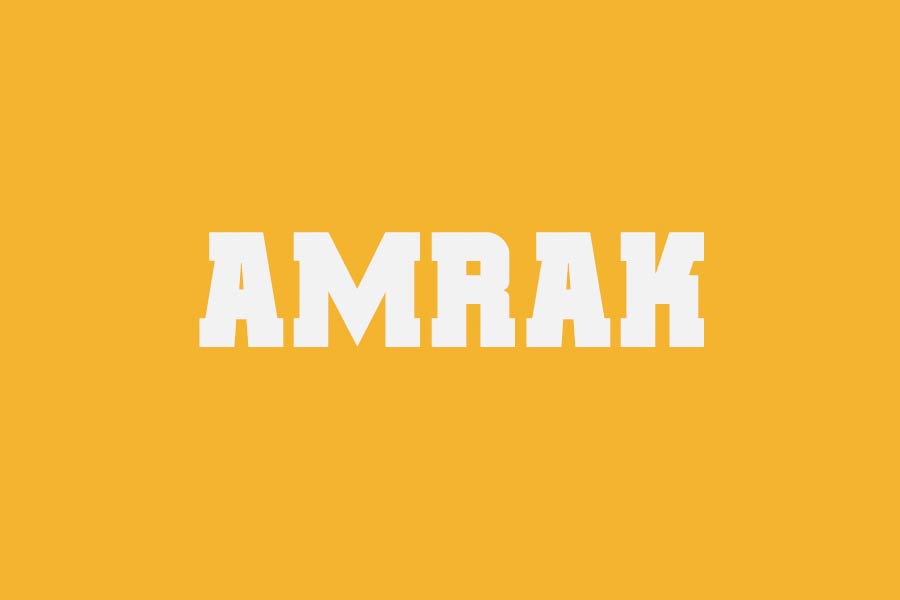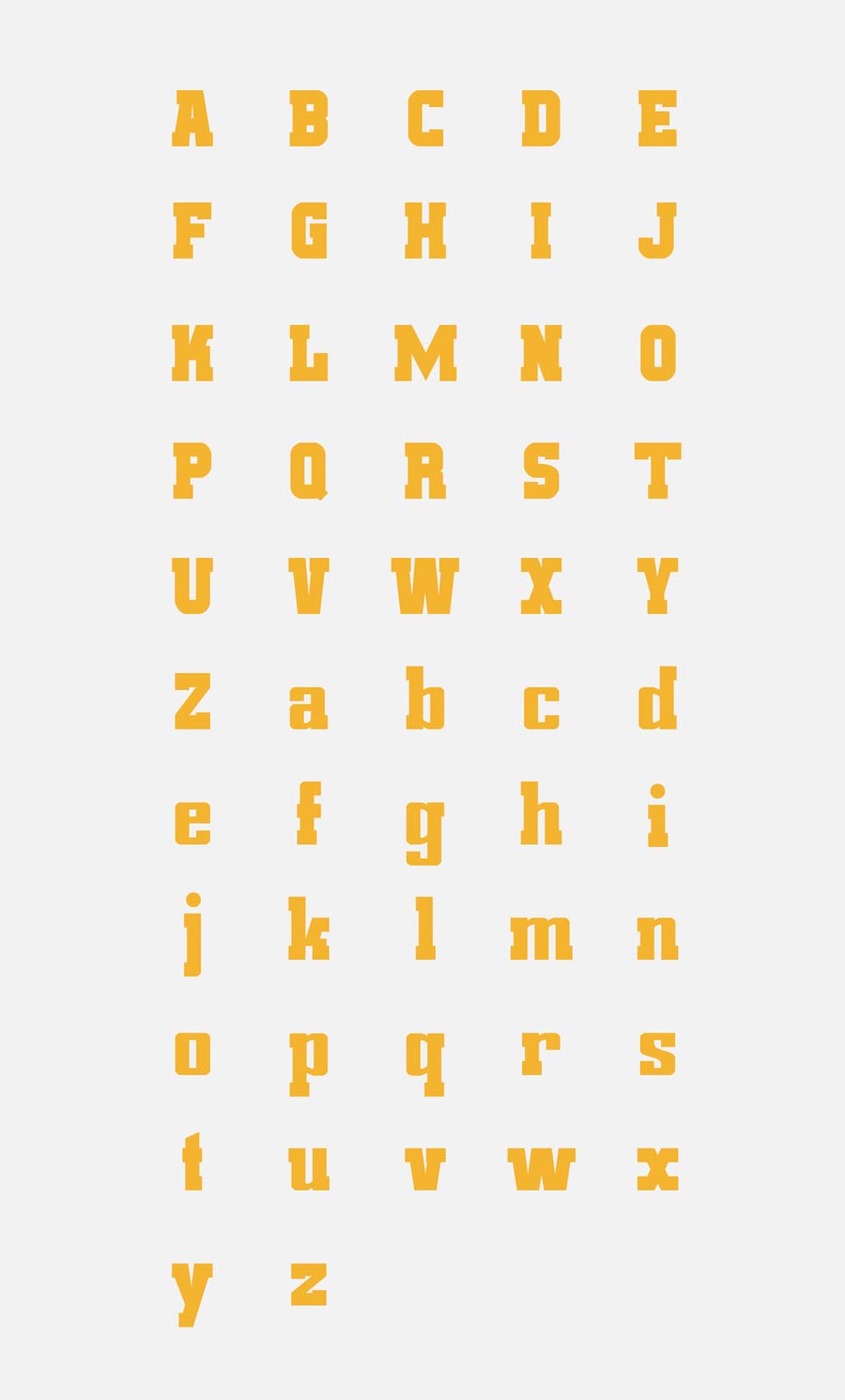
Amrak is a bold, angular display font available to download for free. With the nature of the font design, this font is suitable for big headline displays, and can be nice contrast to body text running around it. Amrak works well with sports and urban related designs.